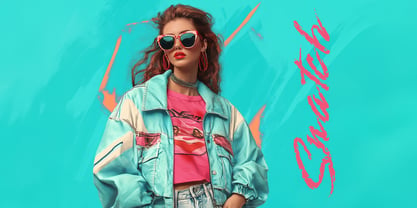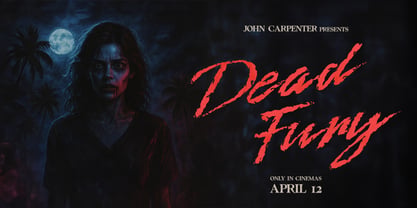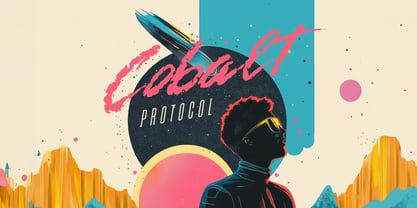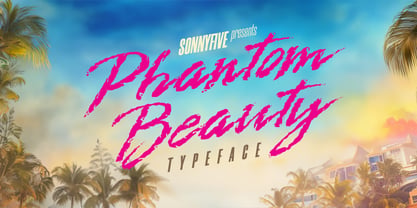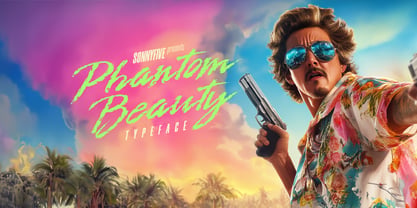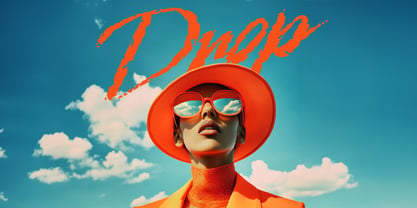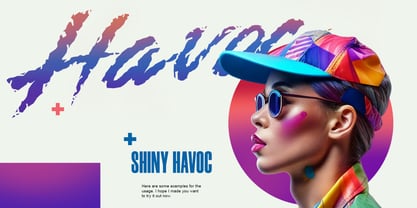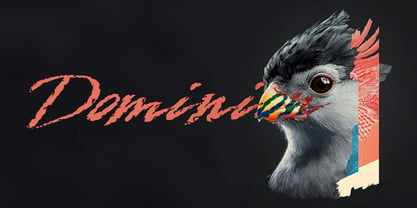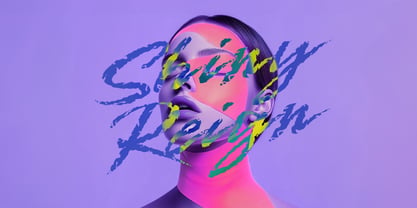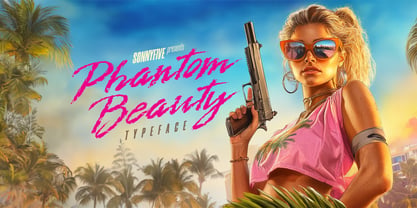
Phantom Beauty
Phantom beauty is a bold, high-impact display typeface inspired by the energy and visual language of the 1980s.
Sharp, clean, and rhythmically structured, it draws from retro aesthetics—like neon signs, VHS packaging, and synth-driven cinema—but breaks free from pure nostalgia.
While it was born from a love of bold lettering and vintage design, Phantom beauty is not bound to the past.
Its dynamic form makes it equally suitable for contemporary branding, posters, editorial layouts, album covers, or anything that calls for strong typographic presence.
Use it to scream, to glow, or to simply hold the spotlight.